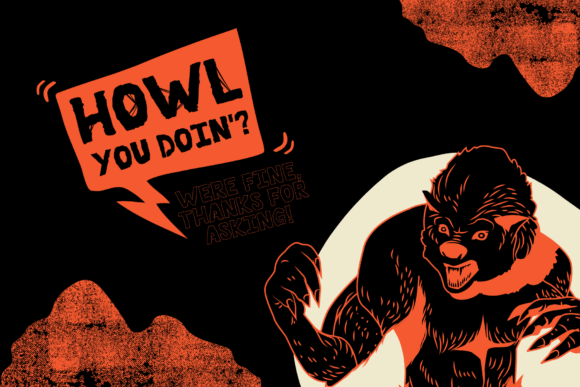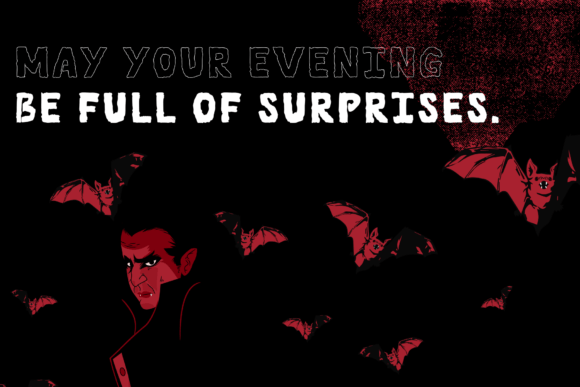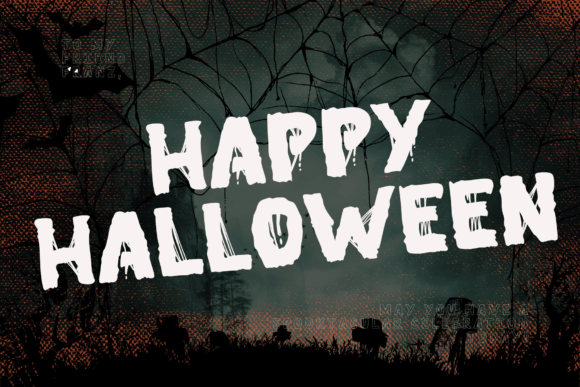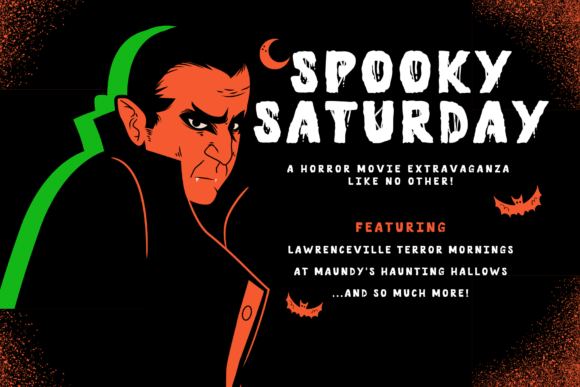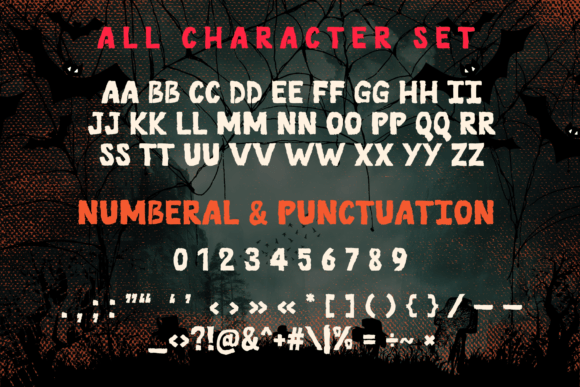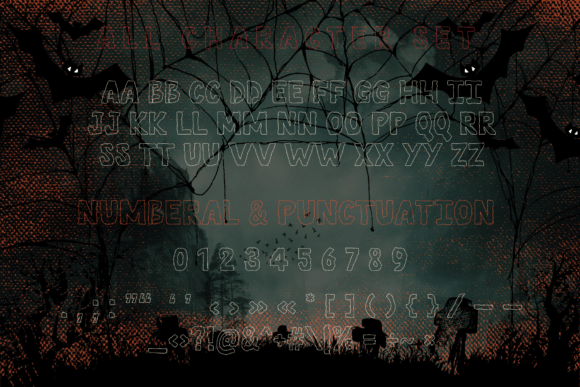
Spicing Up Your Designs with a Dash of Halloween Magic
It’s that time of the year when creativity knows no bounds, and the imagination runs wild. You’re brainstorming ideas for your next design project, and the theme of Halloween is buzzing in your head. The spooky atmosphere, the creepy creatures, and the eerie ambiance – it’s the perfect setting for unleashing your artistic side.
Now, imagine adding a touch of authenticity to your designs with a font that screams Halloween spirit. Welcome Hello Halloween Font, a display family font that embodies the playfulness and essence of the season. Whether you’re working on a blog post, a logo, or an invitation, this font is the perfect companion to bring your ideas to life. With its versatility and charm, Hello Halloween Font is a valuable addition to any designer’s toolkit, making it an essential choice for all your Halloween-themed projects.
Hello Halloween Font Key Features
- Font Style: A spooky and playful font perfect for Halloween-themed designs, greeting cards, and party invitations.
- Unique Characteristics: Features a unique blend of bold, gothic, and script elements, creating a distinctive and eye-catching design.
Hello Halloween Font Review
When I first laid eyes on Hello Halloween Font, I was immediately drawn to its playful and whimsical feel. ✨ The font’s unique blend of spooky and kooky elements makes it perfect for projects that need a dash of Halloween magic. ✨ The font is also highly customizable, allowing users to adjust the size, color, and even add custom effects to really make it stand out.
However, I do have a few reservations about this font. ⚠️ Firstly, the font can feel a bit over-the-top, which may not be suitable for all projects. ⚠️ Additionally, the font’s irregularities and imperfections can sometimes make it difficult to read, especially at smaller sizes.
- Playful and whimsical design perfect for Halloween-themed projects
- Highly customizable with options for size, color, and effects
- Unique blend of spooky and kooky elements
- Irregularities and imperfections can make it difficult to read at smaller sizes
Overall, I think Hello Halloween Font is a great choice for projects that need a bold and eye-catching Halloween vibe. While it may not be suitable for all projects, it’s definitely worth considering for those looking to add a touch of spooky magic to their designs.
The Hello Halloween font is perfect for creating spooky and playful designs for Halloween-themed projects. Some common use cases include:
- Halloween party invitations
- Spooky social media graphics
- Halloween-themed printables
- Spooky website headers
Remember to experiment with different font sizes, colors, and styles to get the most out of the Hello Halloween font.